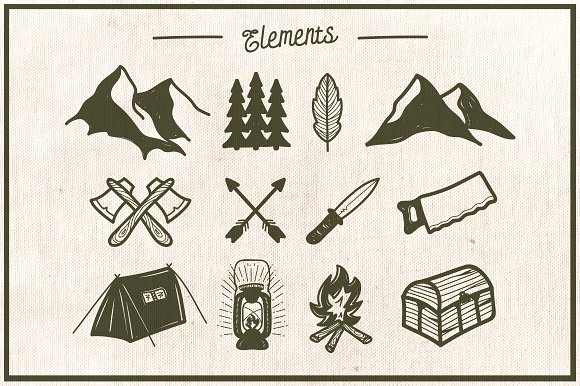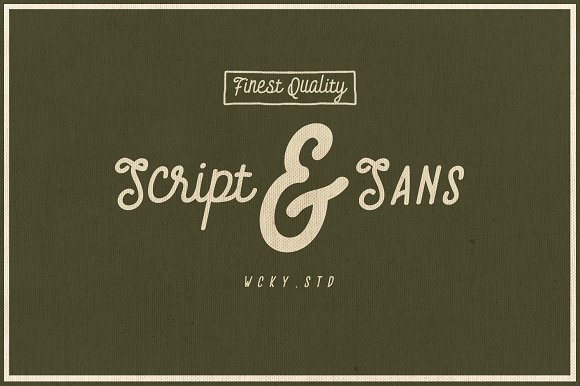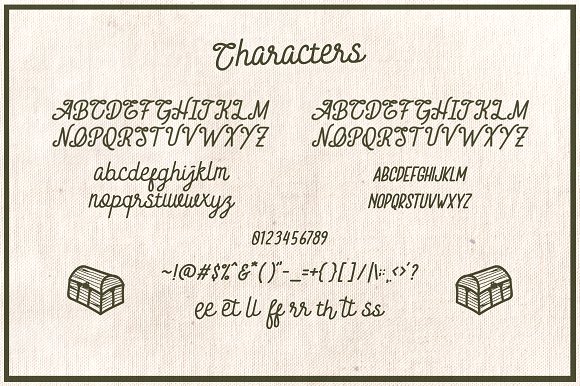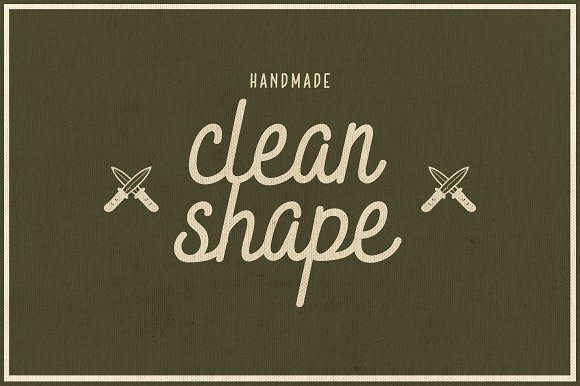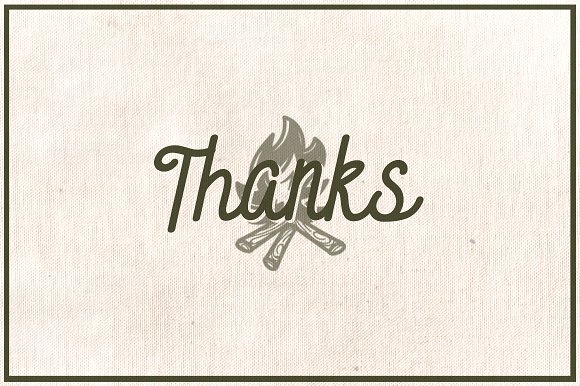
Brave Typeface
BRAVE TYPEFACE Vintage font have 2 (two) style. Can make it easier to convey the message in your design. Use for awesome display, labeling, clothing, movie sceen, poster, movie title, gigs, album covers, logos, and much more.